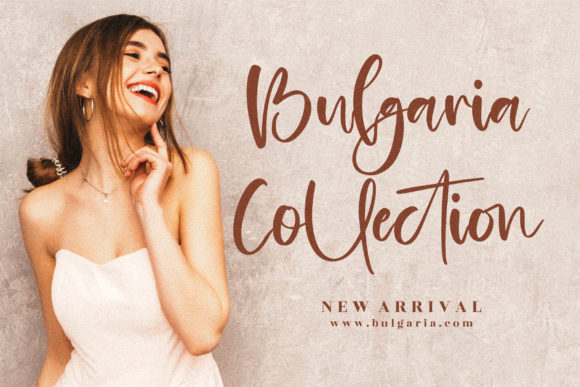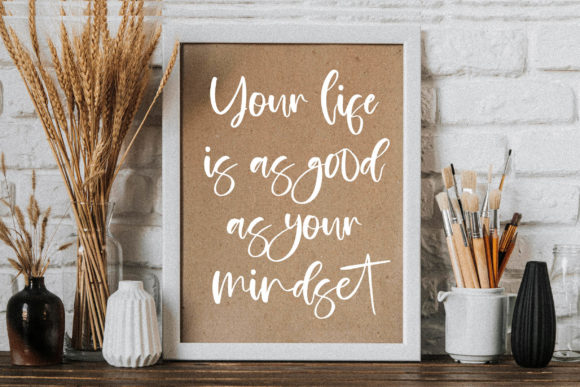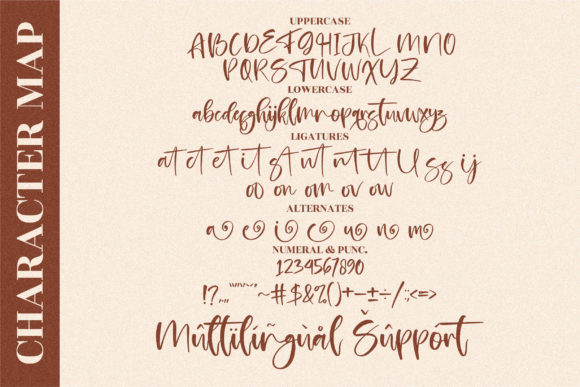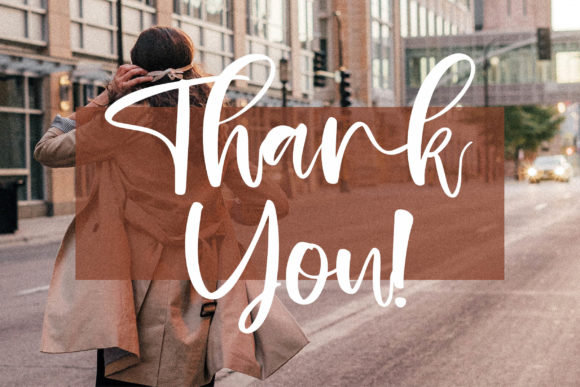
About Brilliant Castelo Font
Brilliant Castelo is a relaxed, trendy and flowing handwritten font. It has beautiful and well balanced characters and as a result, it matches a wide pool of designs. Brilliant Castelo features a varying baseline, smooth lines, gorgeous glyphs and stunning alternates.